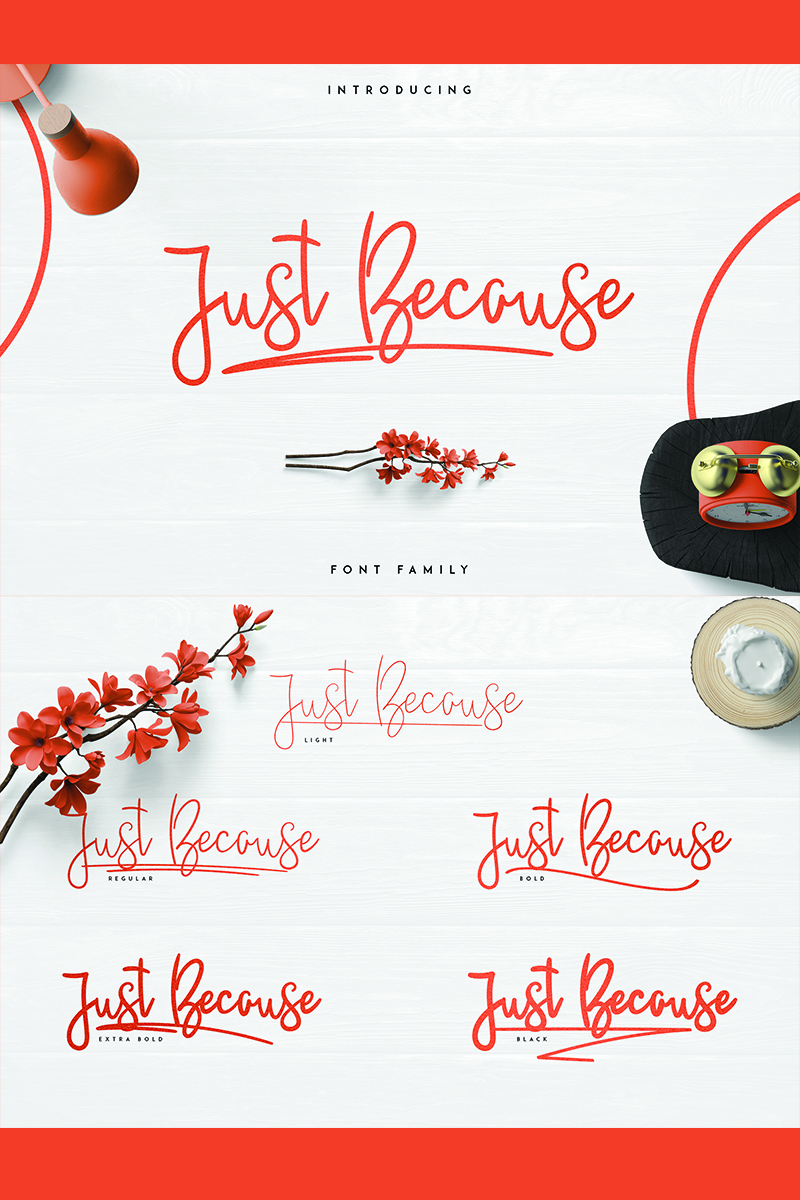
Just Because Font
JustBecause is clean, hand drawn typeface with 5 fonts, swashes, photoshop styles and multilingual support. It's a very versatile font that works great in large and small sizes.
JustBecause is perfect for branding projects, home-ware designs, product packaging, magazine headers - or simply as a stylish text overlay to any background image.
- Uppercase,lowercase,numeral,punctuation & Symbol
- Multilingual
- Light
- Regular
- Bold
- ExtraBold
- Black
- Swashes
- Photoshop styles